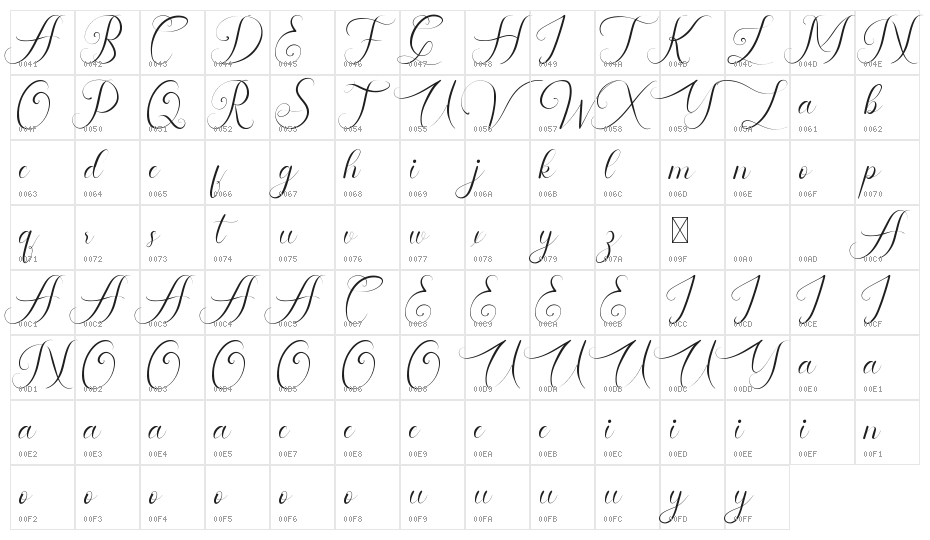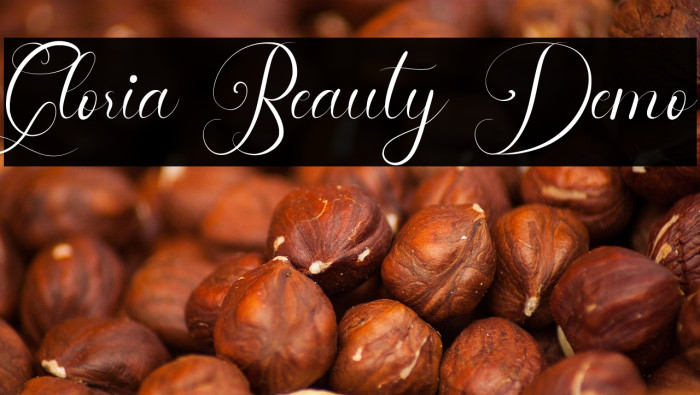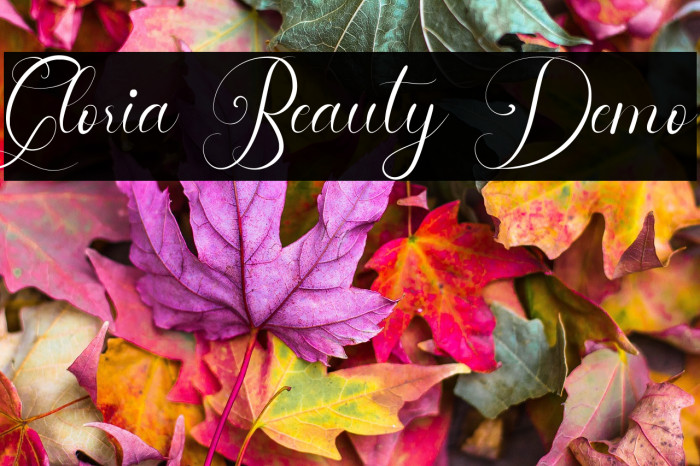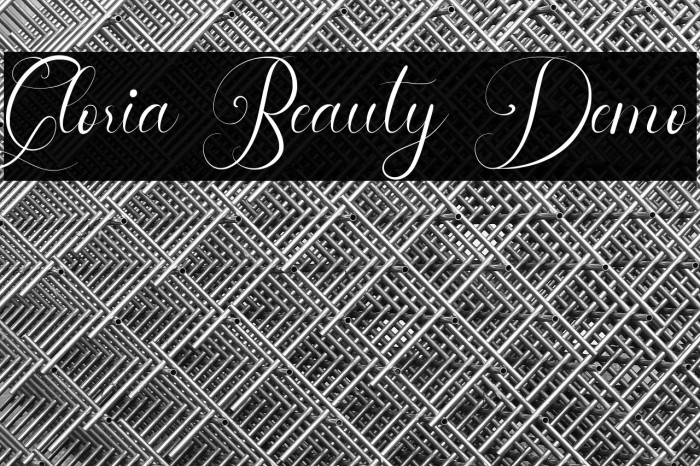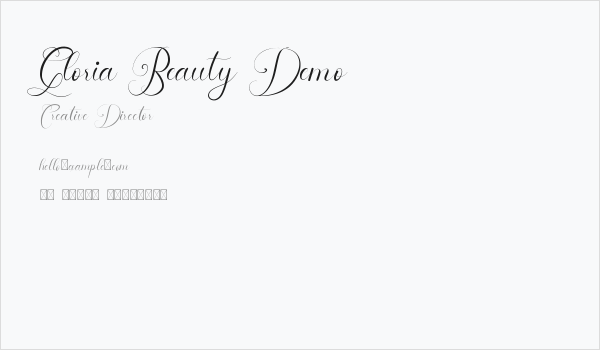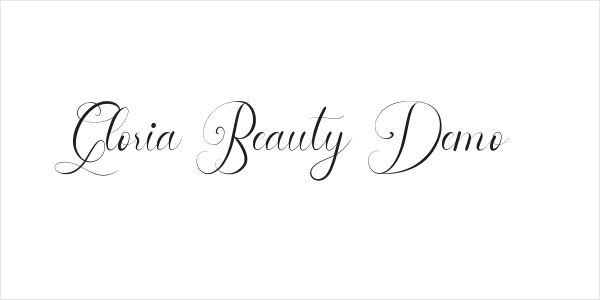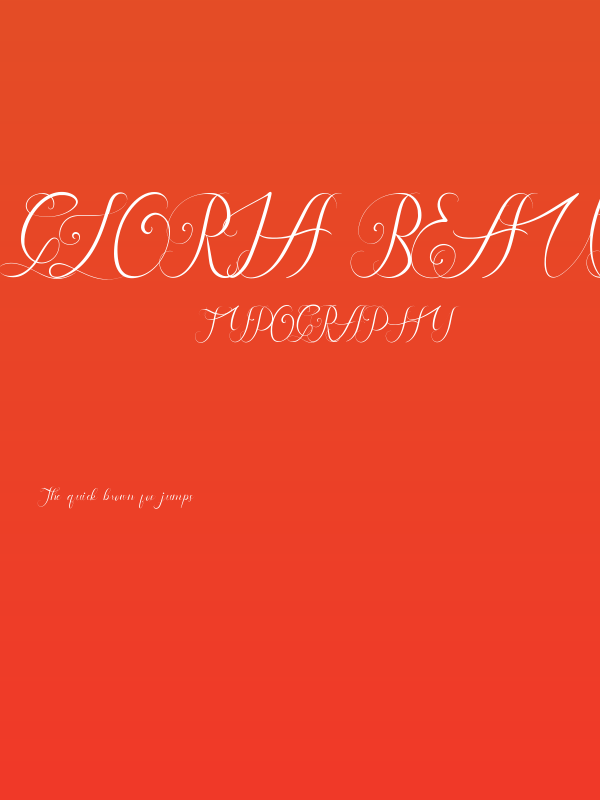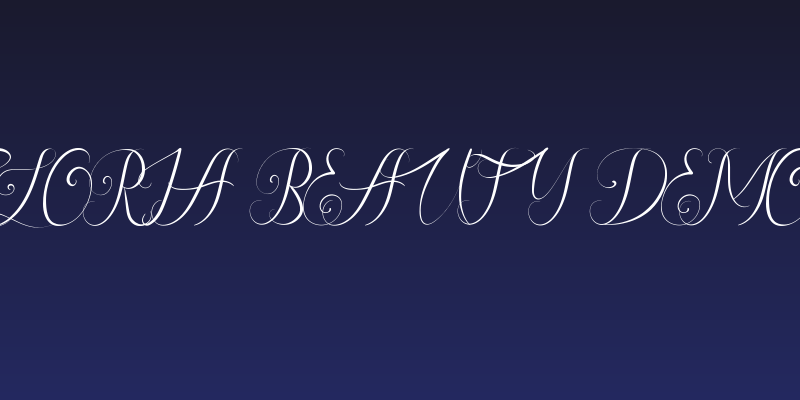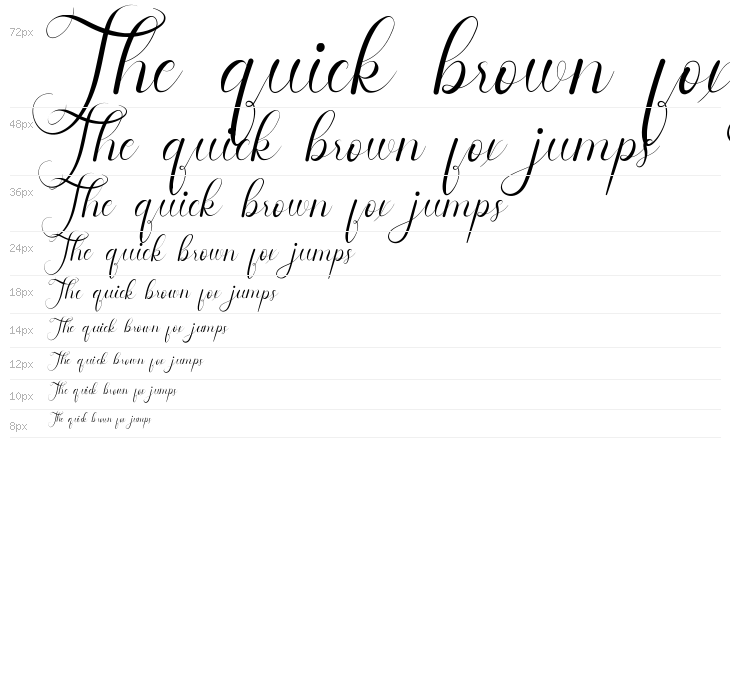
Gloria Beauty Demo Font
Gloria Beauty Demo Description
This elegant script font features flowing, intricate letterforms with elaborate swashes and flourishes. The uppercase letters are particularly ornate, showcasing a high level of detail and sophistication. The lowercase letters maintain a graceful and fluid style, with some characters extending below the baseline, adding to the font's dynamic appearance. The overall design is reminiscent of classic calligraphy, with a modern twist that makes it suitable for contemporary applications. The font's delicate lines and curves create a sense of movement and elegance, making it ideal for projects that require a touch of refinement and luxury.
| Overall Style | Elegant, Calligraphic |
| Proposed Projects | Wedding invitations, luxury branding, elegant stationery, and high-end product packaging. |